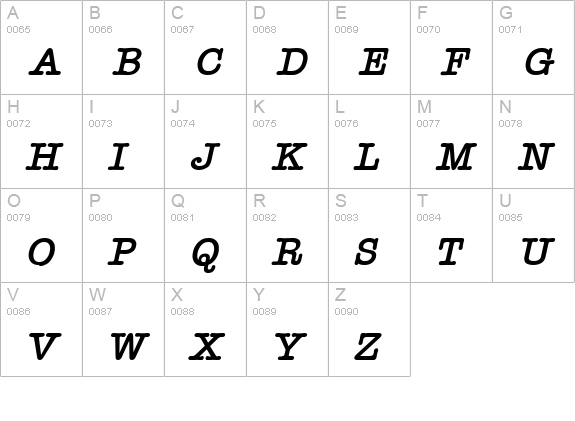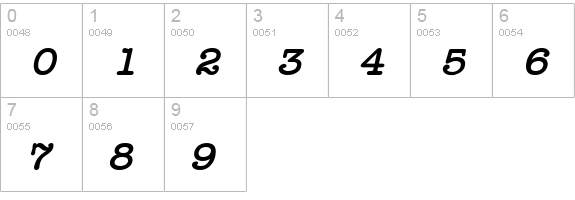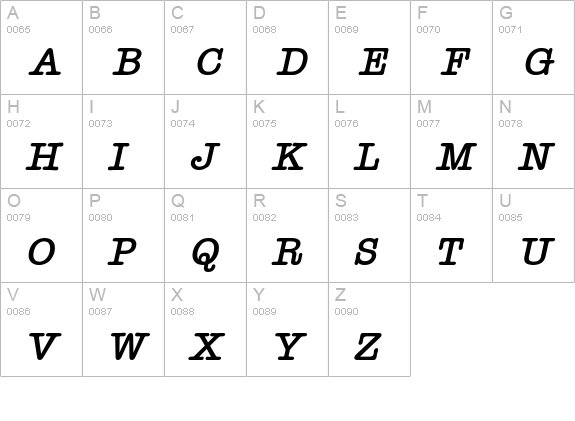
Headline BoldItalic Font Details
Introducing Headline BoldItalic, a striking and captivating font that effortlessly combines boldness and elegance. This font is the perfect choice for any project that requires a touch of sophistication and modernity. With its unique blend of bold and italic styles, Headline BoldItalic commands attention and adds a touch of flair to any design. Whether you're creating eye-catching headlines, attention-grabbing logos, or stylish branding materials, Headline BoldItalic is here to elevate your work to new heights. Its sleek and sleek design ensures legibility, while the boldness adds a sense of power and confidence. But what makes Headline BoldItalic even more appealing is the fact that it is available for free! Yes, you heard it right. This stunning font can be freely downloaded at FontsMarket.com, making it accessible to all designers and creatives who are looking to enhance their projects without breaking the bank. Don't miss out on this incredible opportunity to elevate your designs with Headline BoldItalic. Download it for free today at FontsMarket.com and let your creativity soar to new heights. Experience the boldness, elegance, and versatility of this captivating font and make your designs stand out from the crowd.